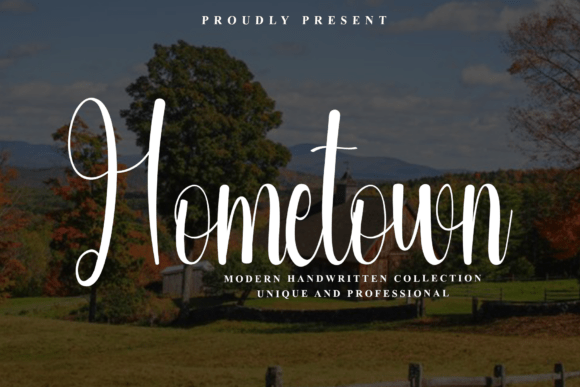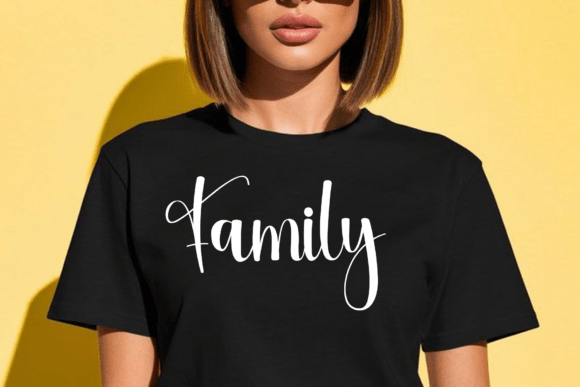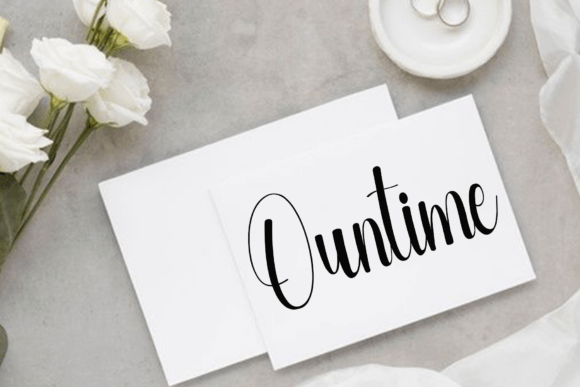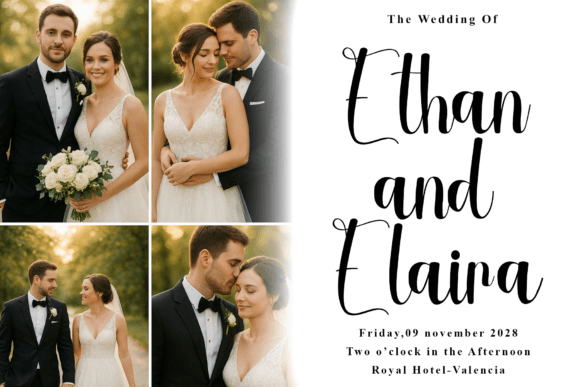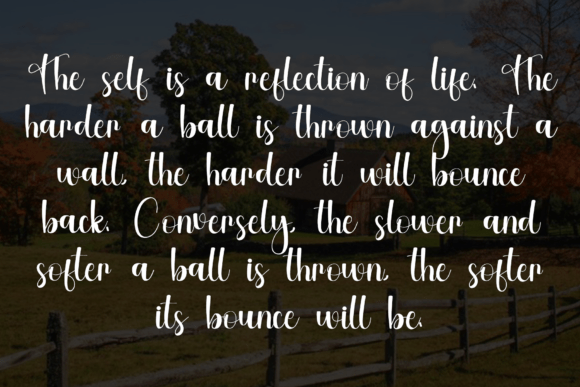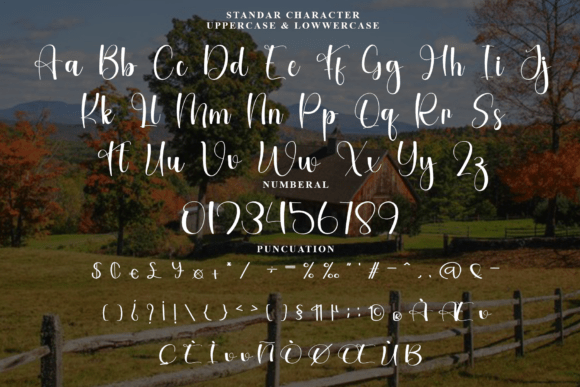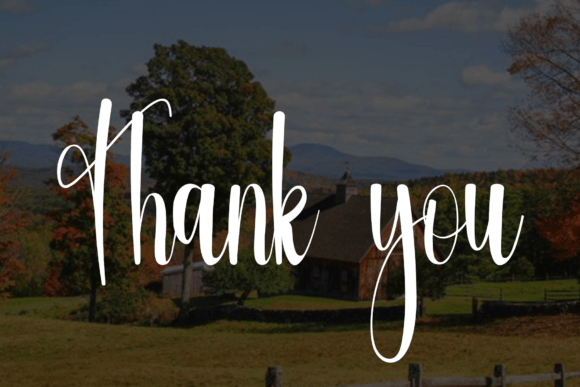
A Sense of Belonging: Unveiling the Timeless Elegance of Hometown Font
Have you ever found yourself in a creative rut, searching for the perfect font to evoke the essence of a place that feels like home? For designers, crafting a visual identity that resonates with a target audience can be a daunting task. But what if you could transport your viewers to a serene landscape with a single font?
Enter Hometown Font, a modern handwritten typeface that embodies the quiet beauty of the countryside. This elegant font features exceptionally tall ascenders and a delicate, fluid motion, making it an ideal choice for high-end lifestyle branding. By incorporating Hometown Font into your designs, you can add a touch of sophistication and warmth, creating a sense of belonging that resonates with your audience.
Hometown Font Key Features
- Font Size: The font family includes various weights and styles, ranging from Extra Light to Bold, allowing designers to choose the perfect size for their project.
- Resolution: Hometown Font is optimized for high-resolution displays, including 4K and Retina screens, ensuring crisp and clear text rendering at any zoom level.
- Unique Characteristics: The font features a friendly, approachable feel with subtle texture and organic elements, making it perfect for branding and identity projects that require a local or community-focused aesthetic.
- Font Width: The font family includes condensed and extended widths, allowing designers to choose the perfect width for their project, from narrow to wide.
Hometown Font Review
I recently had the chance to work with the “Hometown Font” and I must say it’s an interesting addition to the world of typography. There are some aspects that shine through ✨
- Cozy and Approachable Feel – The font has a distinct, nostalgic charm that instantly conveys a sense of familiarity and comfort. It’s perfect for projects that require a down-to-earth or small-town feel.
- Unique Character Set – The font includes a range of unique characters and symbols that can add a touch of personality to your designs. It’s a great option for creatives looking to add some visual interest to their work.
- High Customization Options – The font comes with a range of customization options, including different weights, styles, and sizes. This allows designers to tailor the font to fit their specific needs.
However, there are a few limitations to consider ⚠️
- Limited Legibility at Small Sizes – While the font is perfect for larger sizes, it can become difficult to read at smaller sizes. This may limit its use in certain applications, such as body text.
- Not Ideal for Formal or Corporate Settings – The font’s informal, cozy feel may not be suitable for formal or corporate settings. It’s best used in projects that require a more relaxed or casual tone.
Overall, I think the “Hometown Font” is a solid choice for designers looking to add a touch of personality to their work. While it has some limitations, its unique character set and customization options make it a valuable addition to any design toolkit.
The Hometown Font is perfect for creating a warm and inviting atmosphere in your designs. It is commonly used in:
– Restaurant and café menus
– Travel and tourism brochures
– Local business branding
– Creating a vintage or rustic feel in your designs
Getting the Most Out of the Hometown Font
To get the most out of the Hometown Font, try pairing it with other fonts that have a similar feel and style. Experiment with different font sizes and colors to create a unique and eye-catching design.